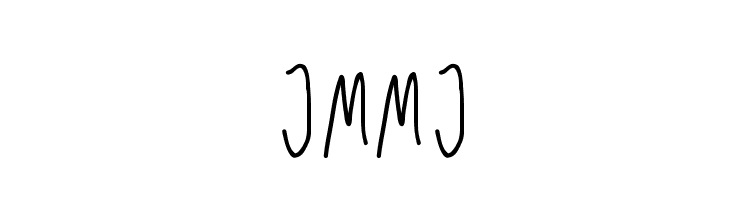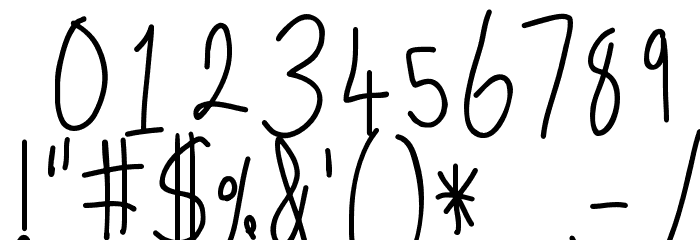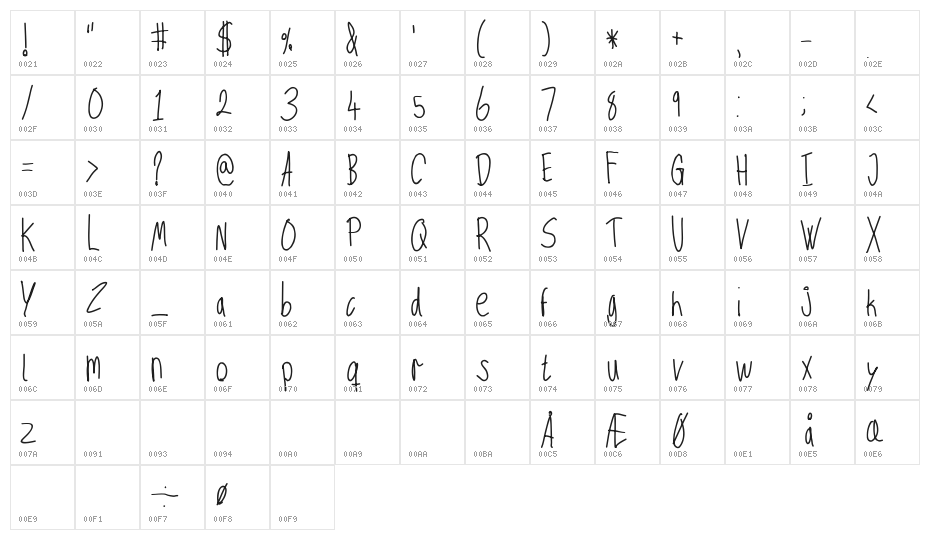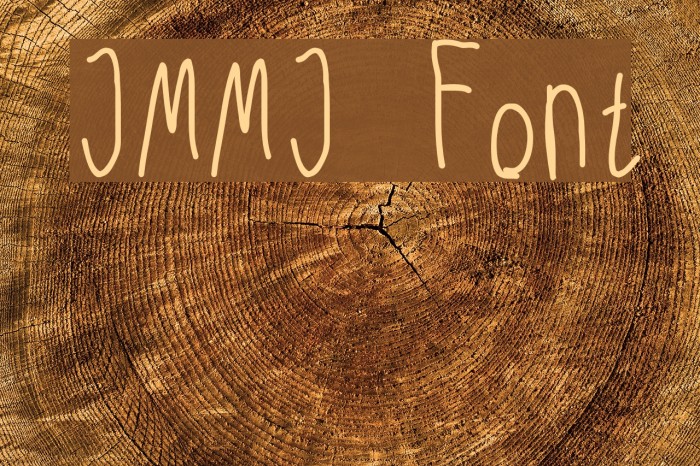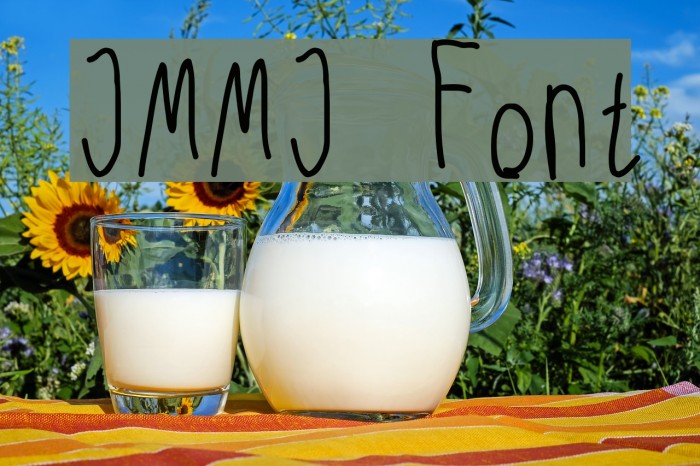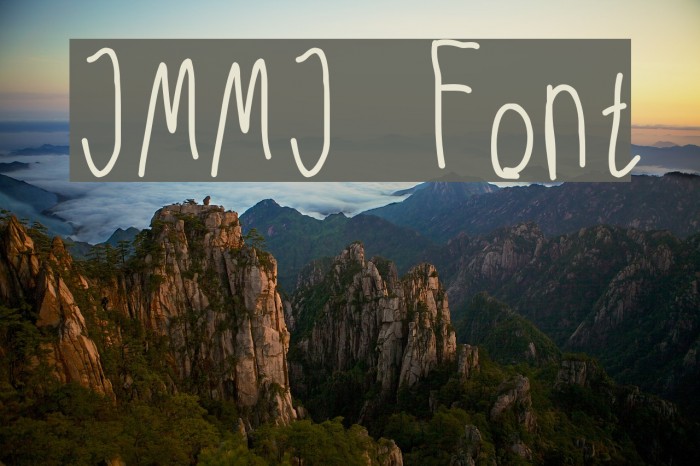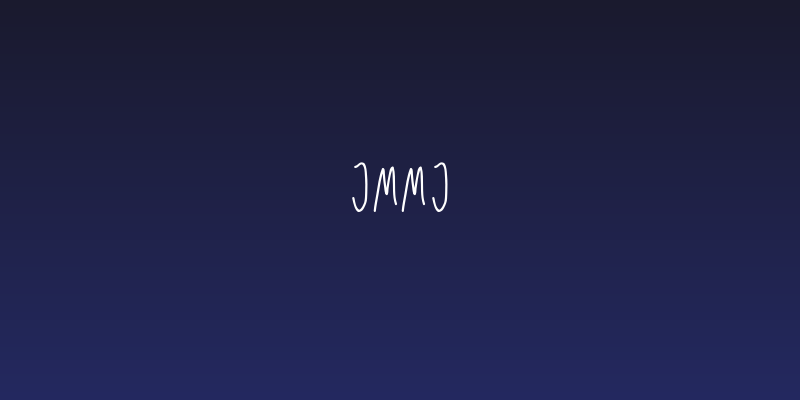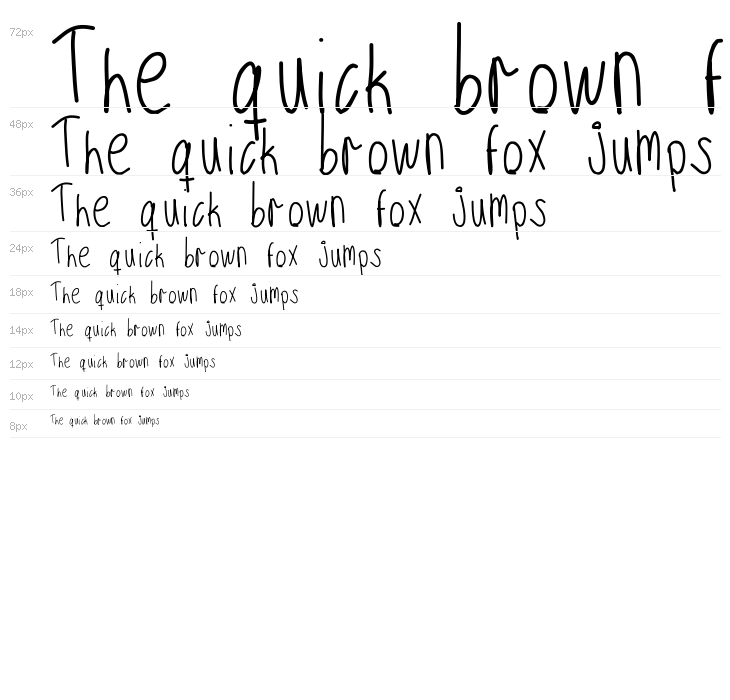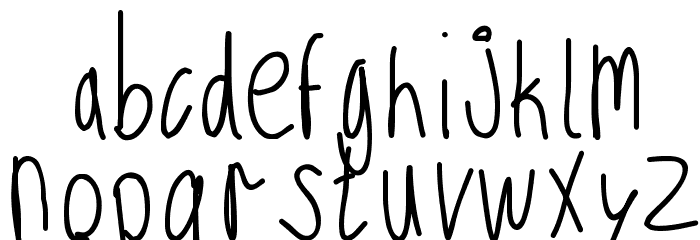
JMMJ Font
JMMJ Description
This font features a playful and casual handwritten style, characterized by its uneven strokes and organic flow. The letters are tall and narrow, with a slightly irregular baseline that adds to its informal charm. The uppercase and lowercase letters maintain a consistent style, with rounded edges and a slight tilt, giving the font a friendly and approachable appearance. The numerals and special characters follow the same whimsical design, making it versatile for various creative applications.
JMMJ UPPERCASE
JMMJ LOWERCASE
JMMJ OTHER CHARS